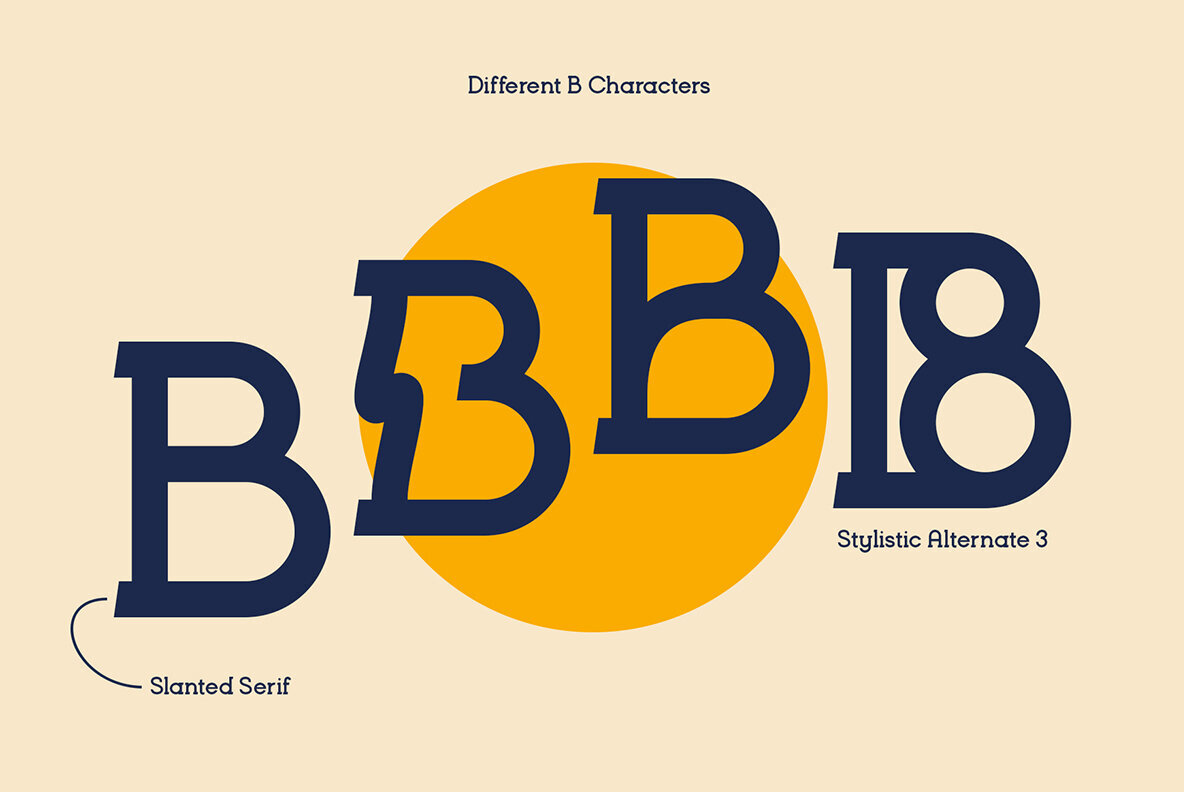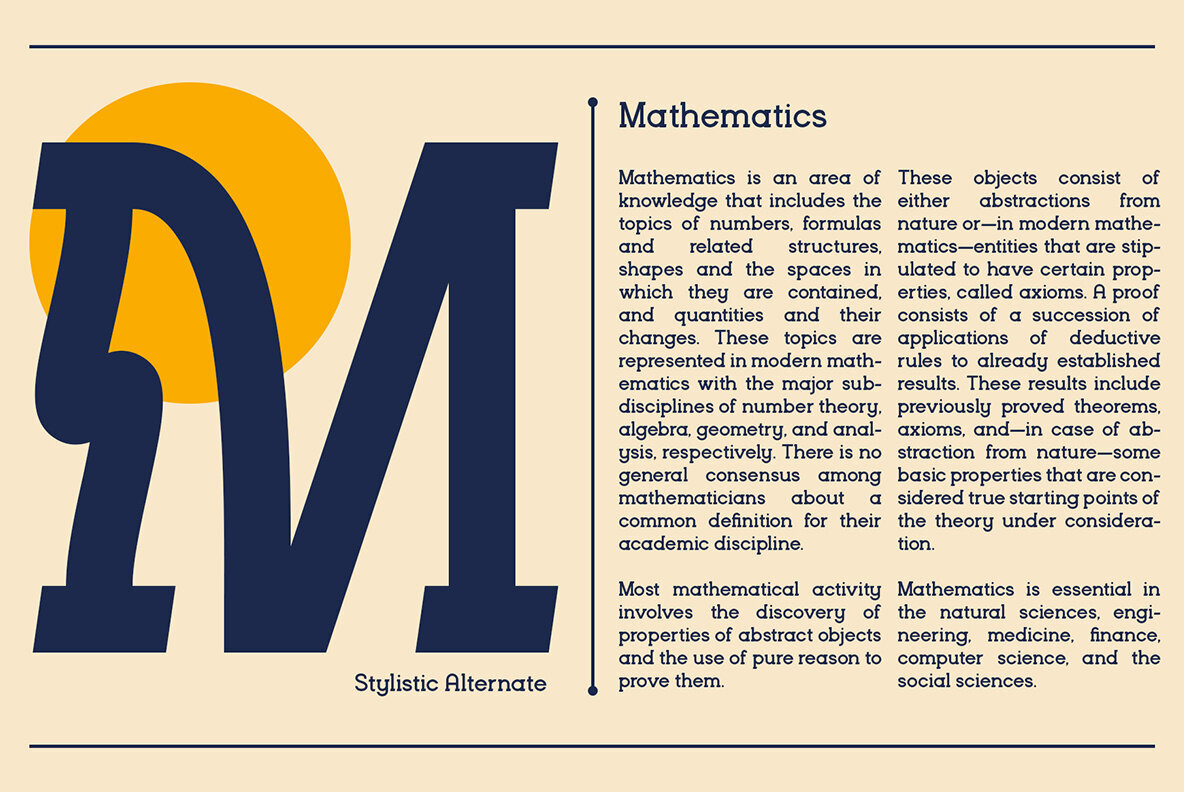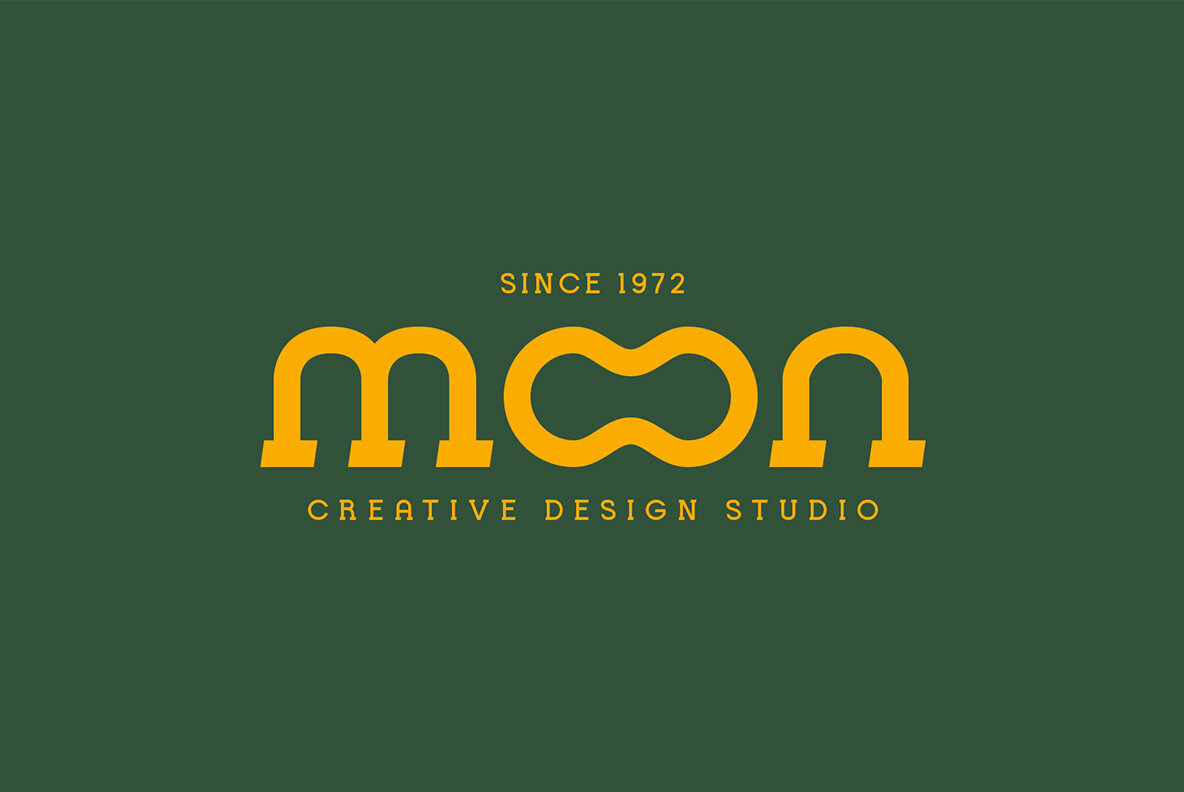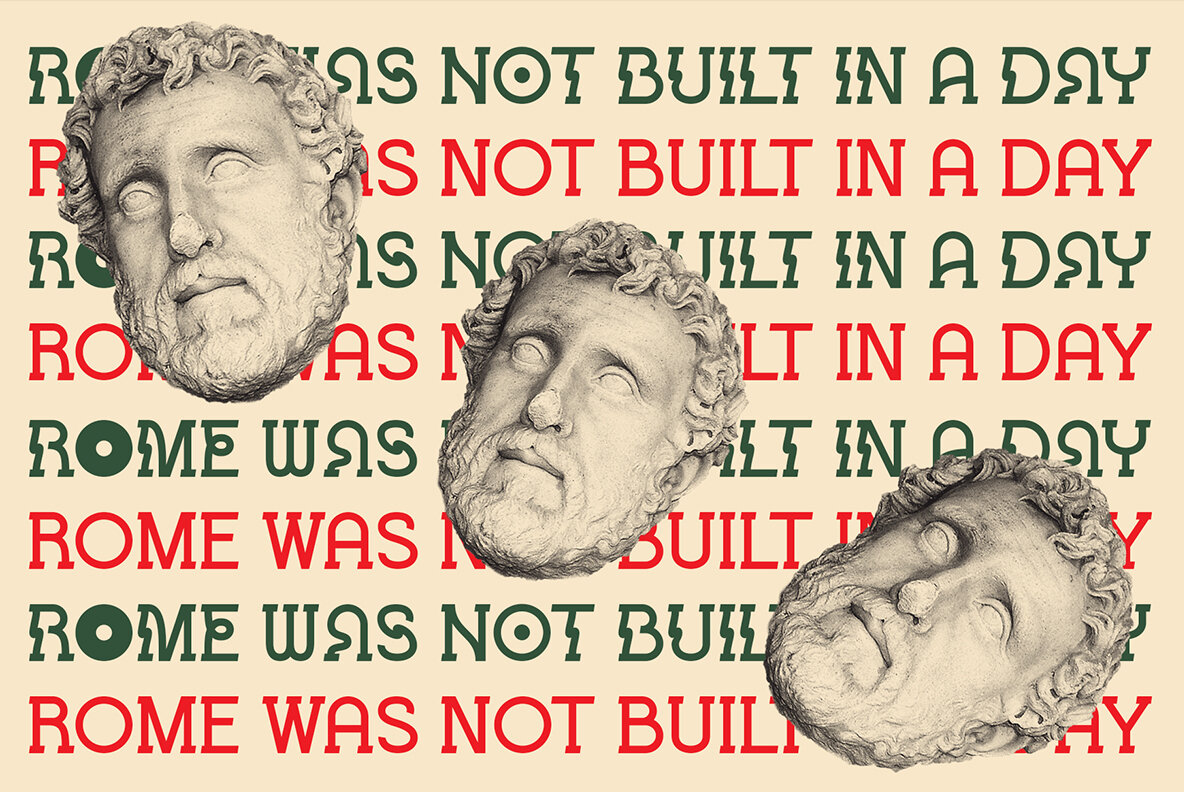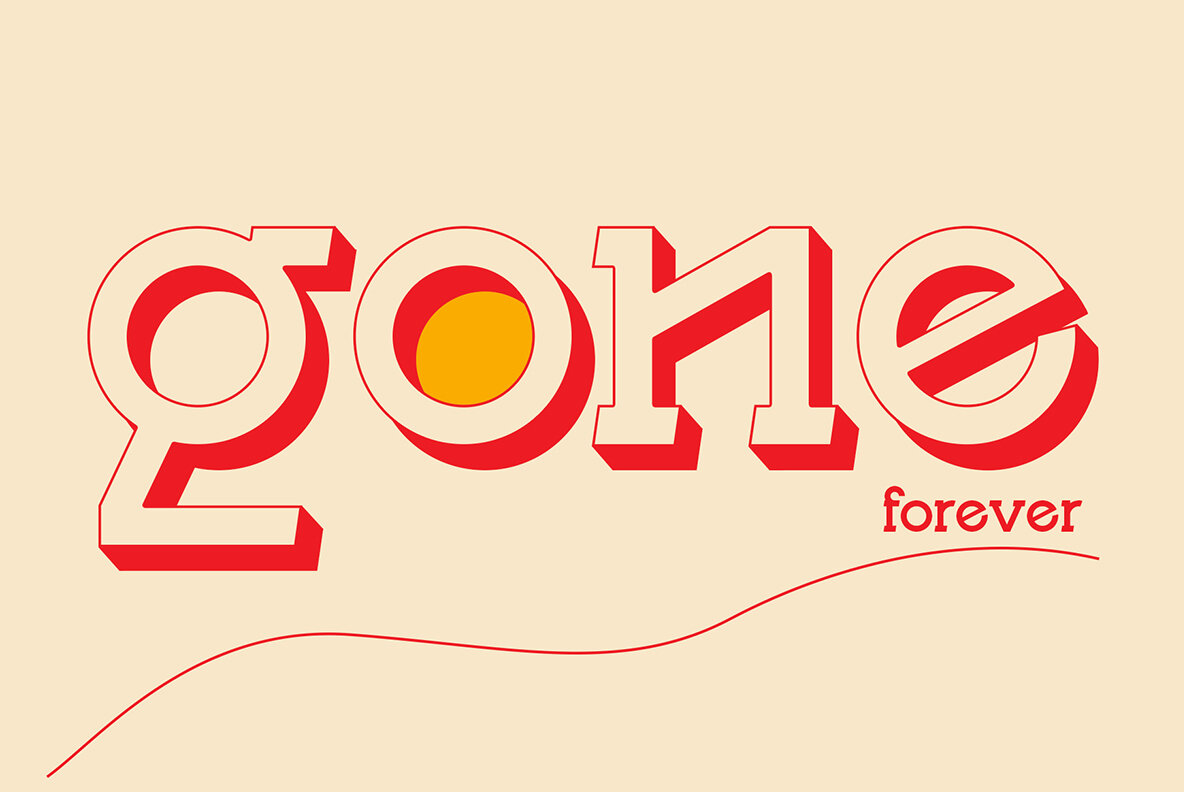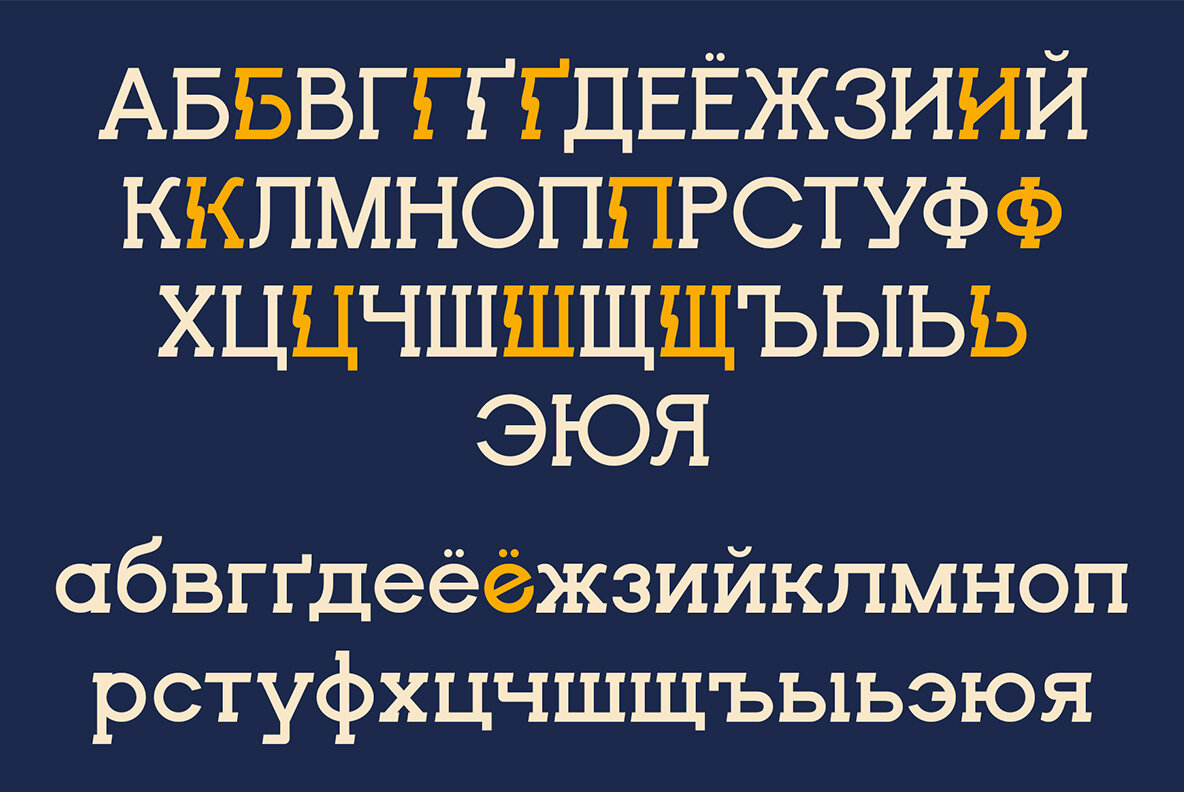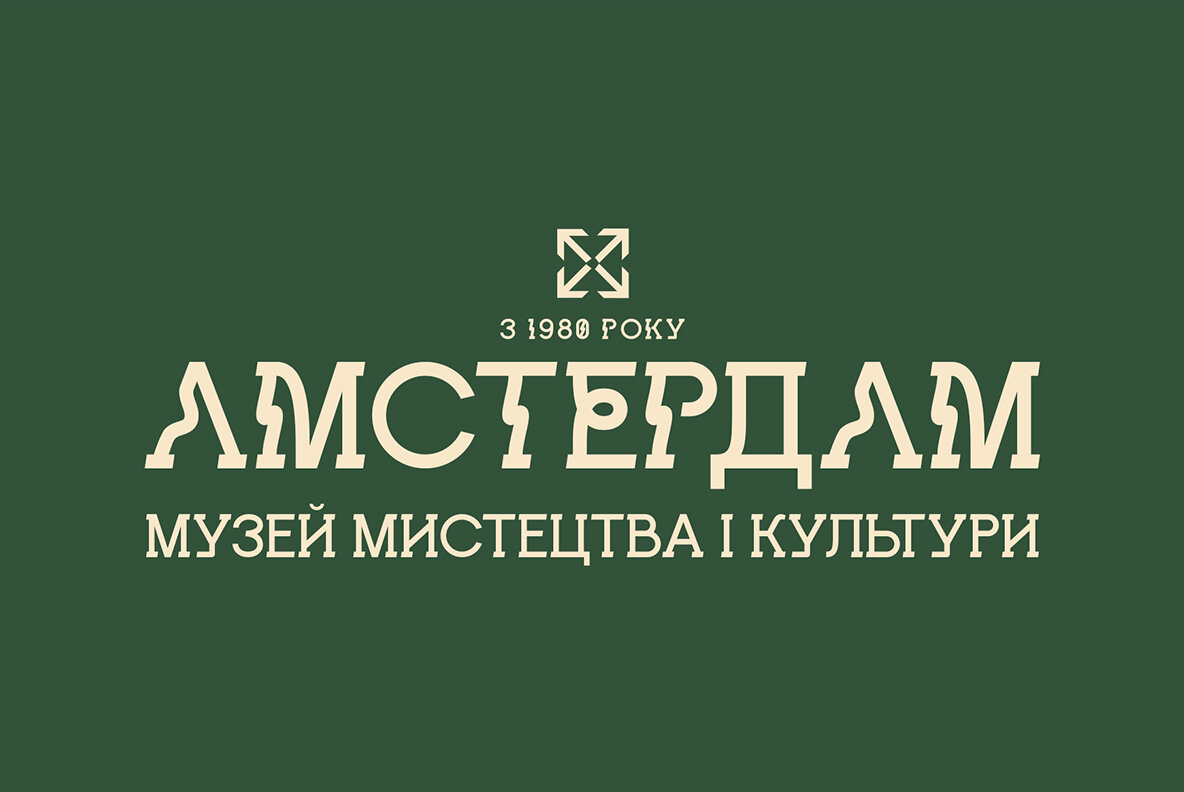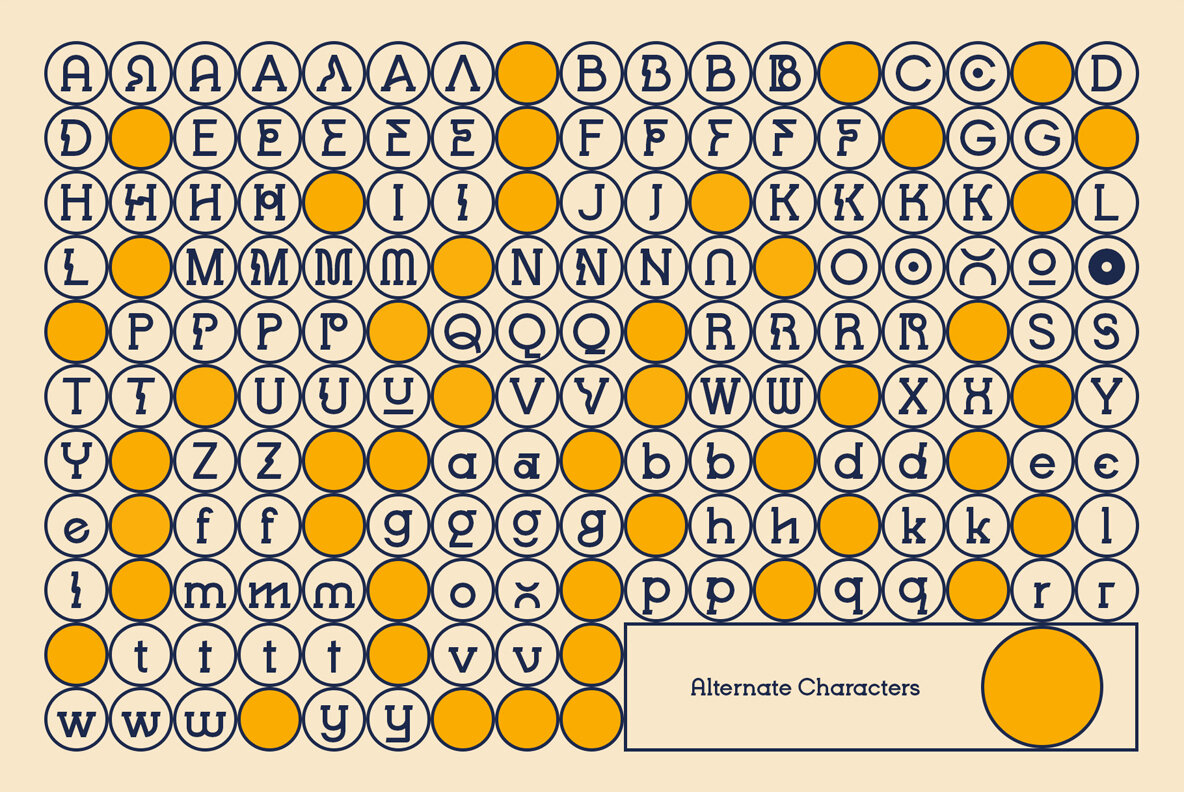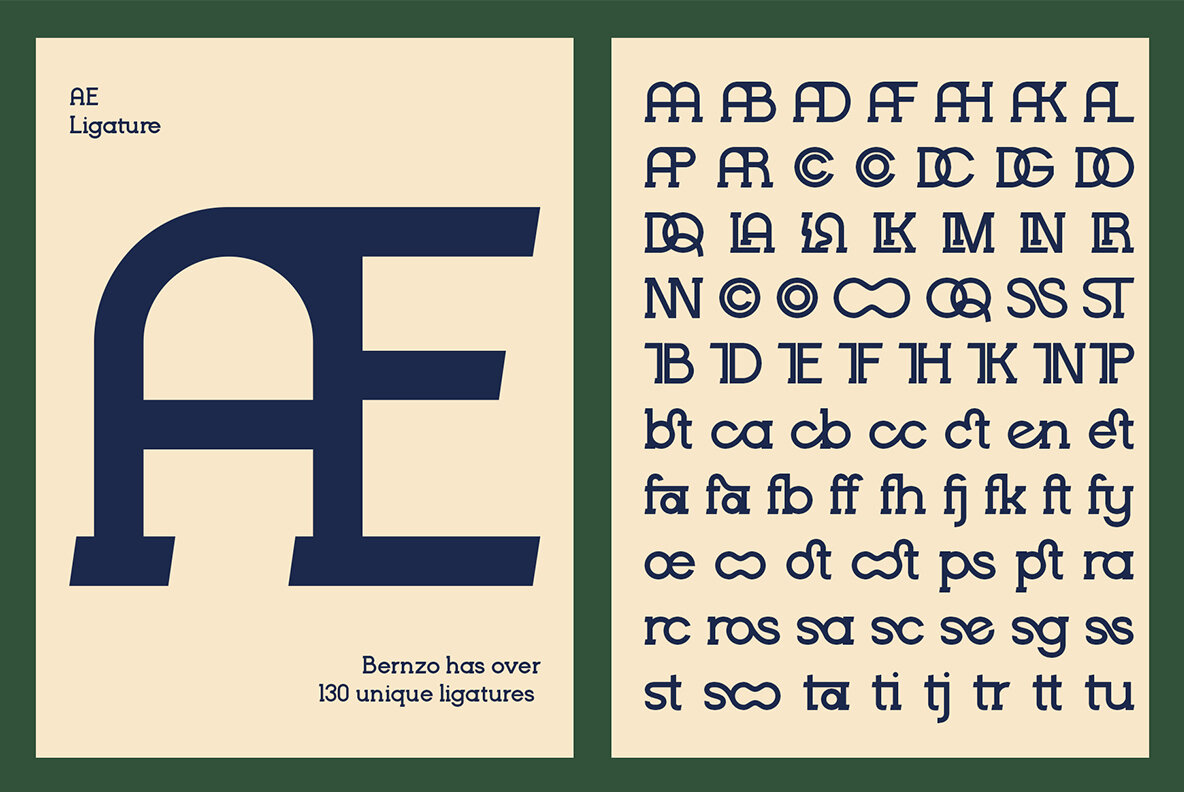
Brenzo Slab Font
Brenzo Slab Regular
Brenzo is a modern geometric slab serif, it comes with unique alternates and creative ligatures. The main idea behind Brenzo slab was to add a creative twist to the standard slab serif font design, to achieve this we decided to slanting the serif and making the shapes more geometrical. Brenzo Slab is an ideal font for graphic designs and advertising agencies, who are looking to create beautiful logos and designs. Brenzo Slab was created to look great in both large and small type settings, this makes it perfect for posters and editorial layouts. With its great multilingual support, which includes Latin pro and Cyrillic characters, Brenzo slab can be used in a large number of different languages.